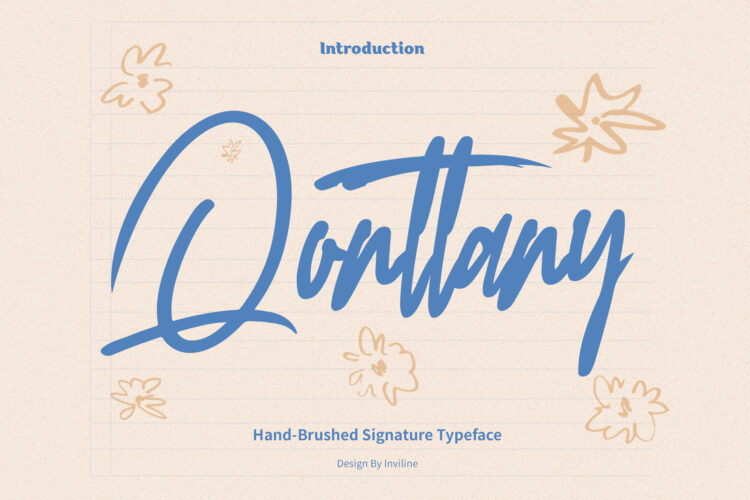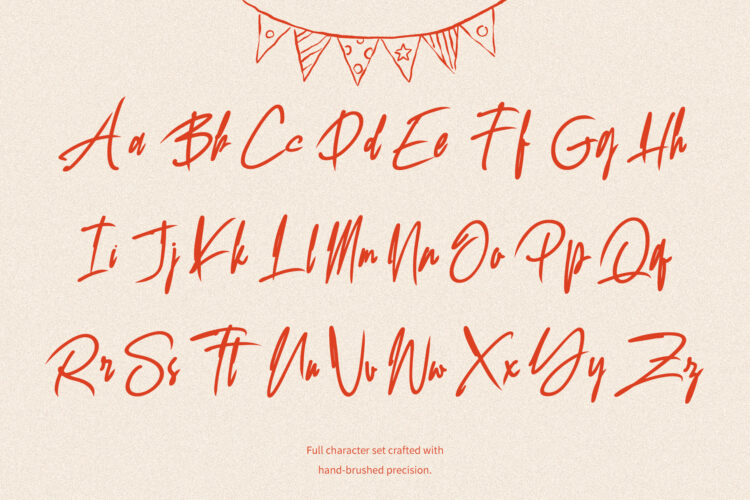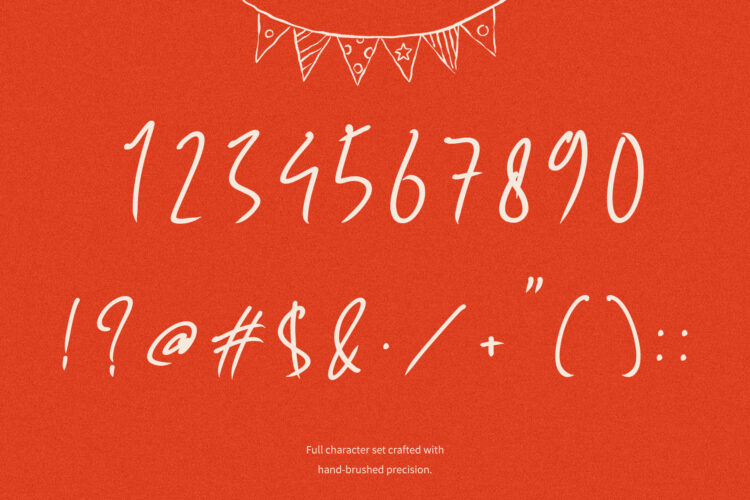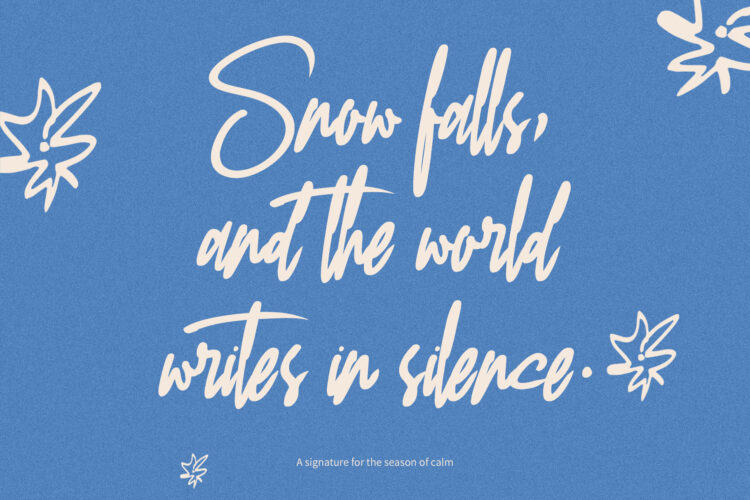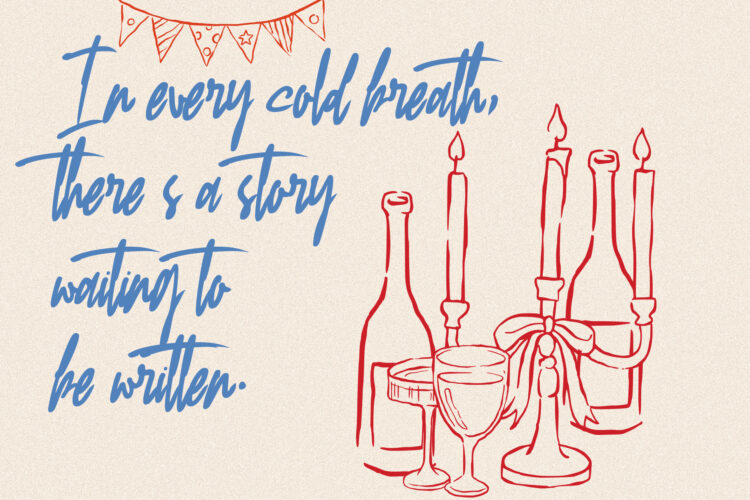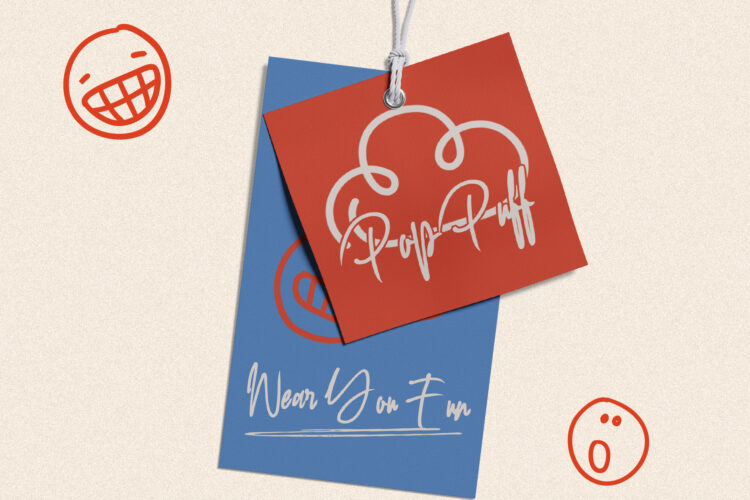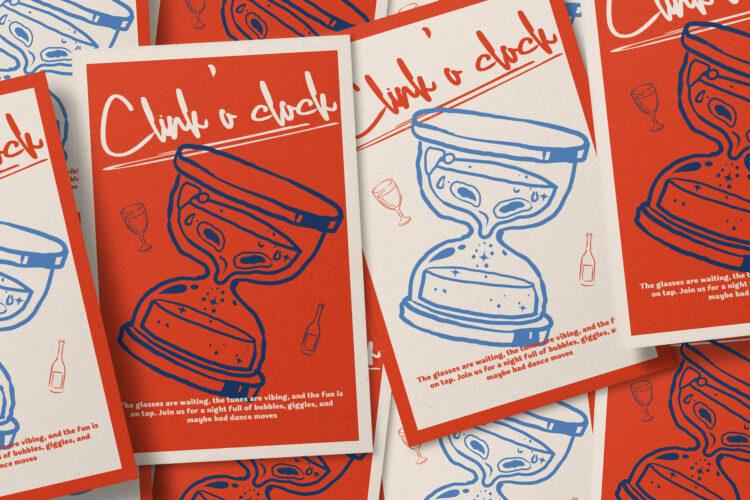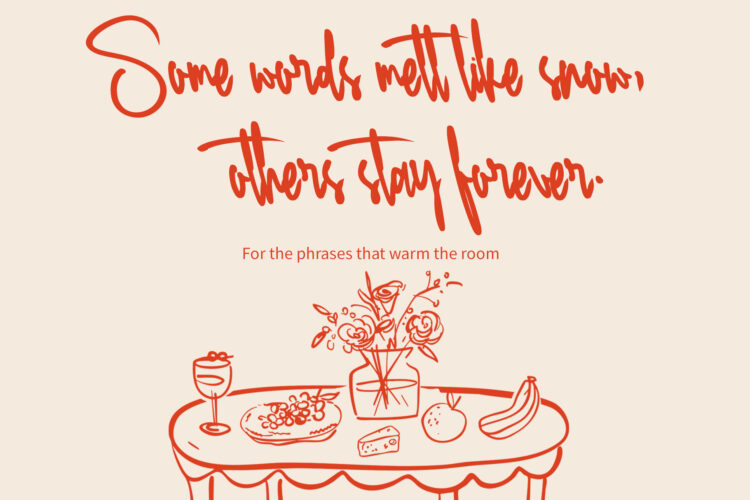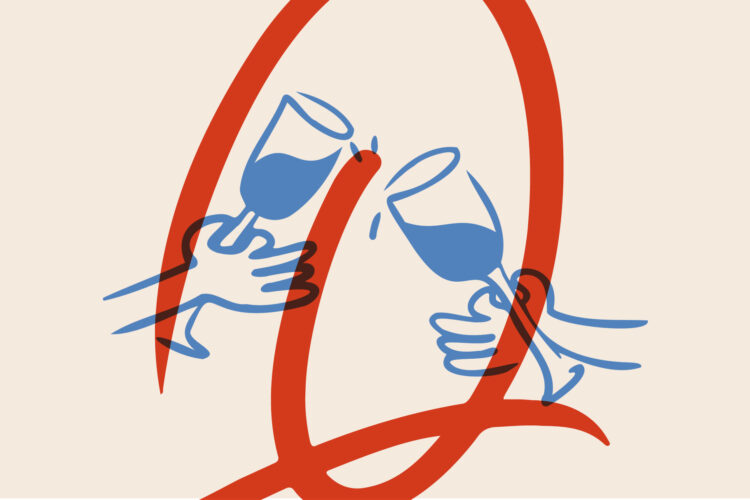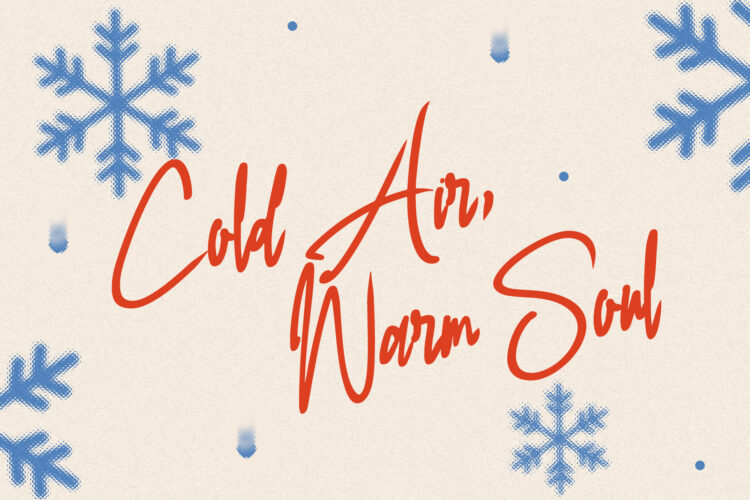
Qonttany is a messy, confident handwritten script that blends raw imperfection with an effortless fashion vibe. Its inky strokes feel spontaneous and unfiltered, like a quick note written in lipstick or a splash of ink turned into style.
Hand-brushed signature font that captures winter’s poetic silence. With its elegant strokes and natural flow, this typeface is perfect for heartfelt branding, social quotes, and serene designs. Designed to evoke warmth and intimacy in every message, Qonttany brings calm to your visual storytelling.
What You Get :
- Uppercase & lowercase
- Numerals & punctuation
- Hand-brushed signature style
- Natural flow & consistent rhythm
- Smooth vector curves
- Multilingual support
Perfect For :
- Branding & logo
- Quote design
- Wedding stationery
- Social media content
- Journals & planners
- Editorial headlines
- Product packaging
- Winter-themed visuals